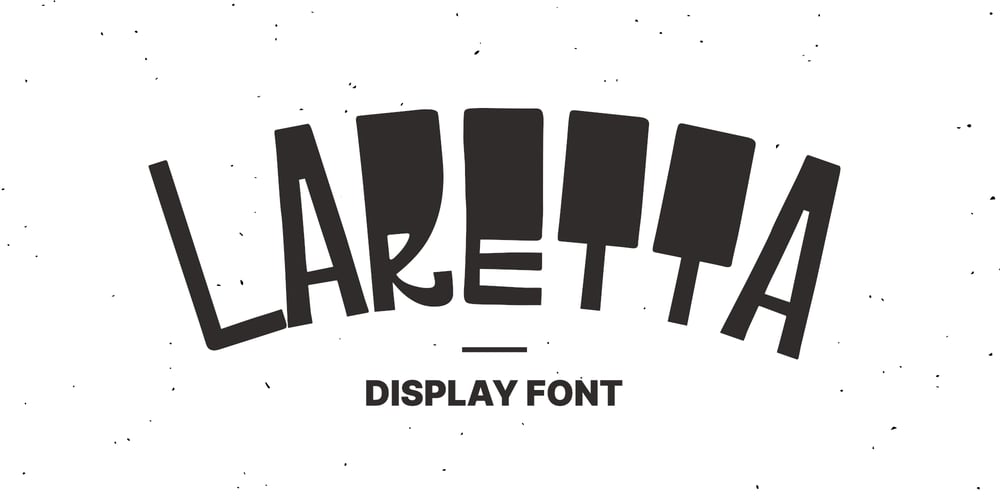
Laretta
Laretta font
Laretta Font Family was designed by Yaroslav Dolzhenko and published by Sarcastic Raven Workshop. Laretta contains 1 styles and family package options. Laretta font inspired by street culture, youthful spirit and student propaganda poster art. Perfect for bright and catchy headings and memorable font blocks.Laretta font is the great choice for posters, banners or logo design, album cover, and many other design project.